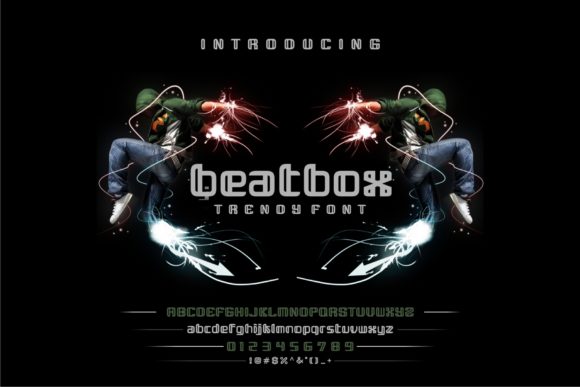
The Beatbox Font: A Game-Changer for Your Designs
I’ll never forget the time I was working on a project for a trendy sports brand, and I just couldn’t find the right font to capture their energetic vibe. The client wanted something that would make their brand stand out, but everything I tried seemed either too bland or too over-the-top. That’s when I stumbled upon the Beatbox font, and it was love at first sight! 💡
Beatbox is a trendy, urban, and sporty display font that’s designed to turn any design idea into an eye-catcher. With its bold and edgy style, it’s perfect for designers, crafters, and creative hobbyists who want to add a touch of personality to their work.
What I Love About Beatbox ✨
- ✅ Unique and bold style: Beatbox has a distinctive look that’s sure to grab attention.
- ✅ Highly versatile: This font can be used for a wide range of projects, from sports branding to music and entertainment.
- ✅ Easy to read: Despite its bold style, Beatbox is surprisingly easy to read, even in smaller sizes.
- ✅ OpenType features: Beatbox comes with a range of OpenType features, including glyphs and stylistic alternates, that allow you to customize your text.
- ⚠️ Limited use in body text: While Beatbox is amazing for headlines and titles, it’s not the best choice for body text due to its bold style.
- ⚠️ May not be suitable for formal projects: Beatbox has a distinctly urban and sporty vibe, so it may not be the best fit for formal or traditional projects.
Beatbox was designed with the urban sports scene in mind. The designer wanted to create a font that would capture the energy and excitement of sports and music, while also being easy to read and versatile. The result is a font that’s perfect for designers who want to add a touch of personality to their work.
Q: What is the Beatbox font?
A: Beatbox is a trendy, urban, and sporty display font designed for use in headlines, titles, and other display text.
Q: Is Beatbox suitable for body text?
A: While Beatbox is easy to read, it’s not the best choice for body text due to its bold style. It’s best used for headlines and titles.
Q: Does Beatbox come with OpenType features?
A: Yes, Beatbox comes with a range of OpenType features, including glyphs and stylistic alternates, that allow you to customize your text.